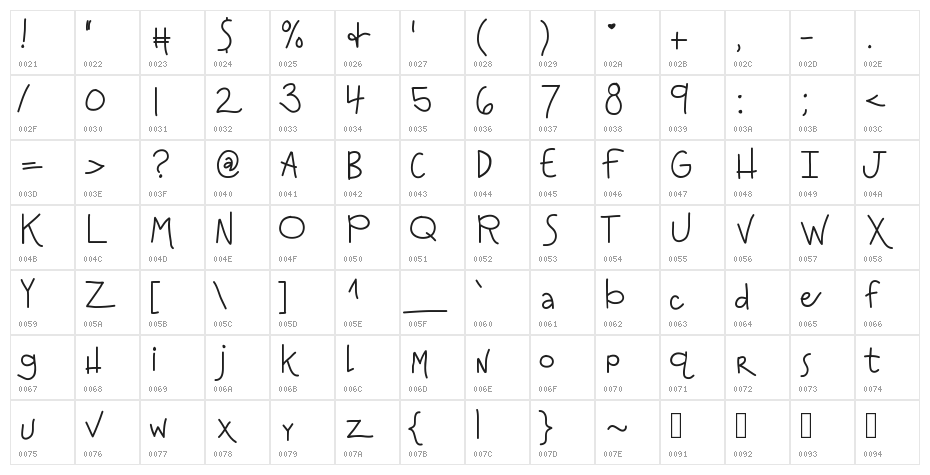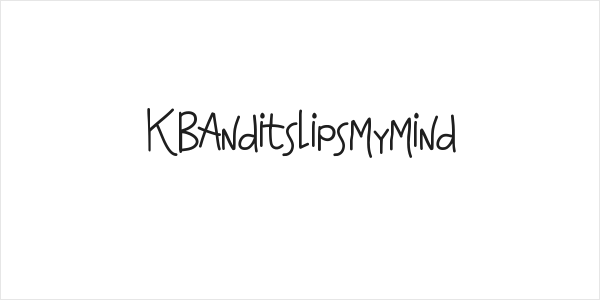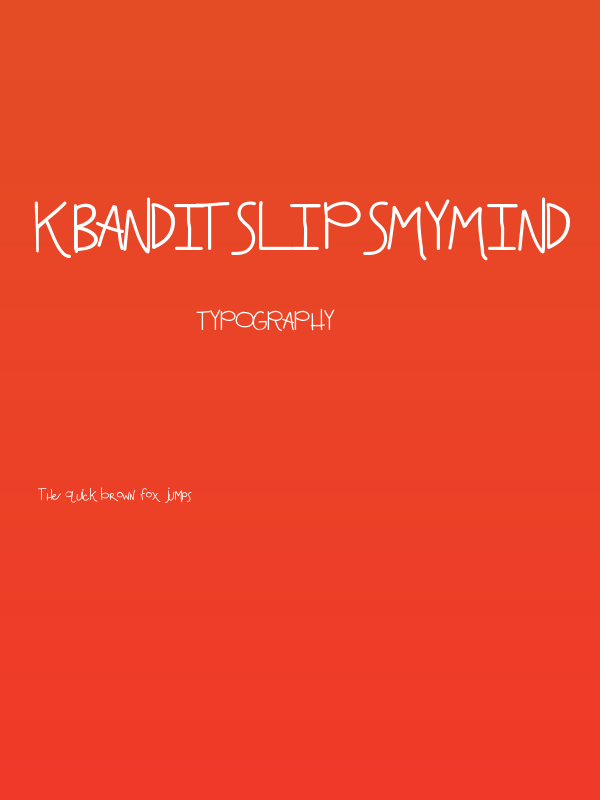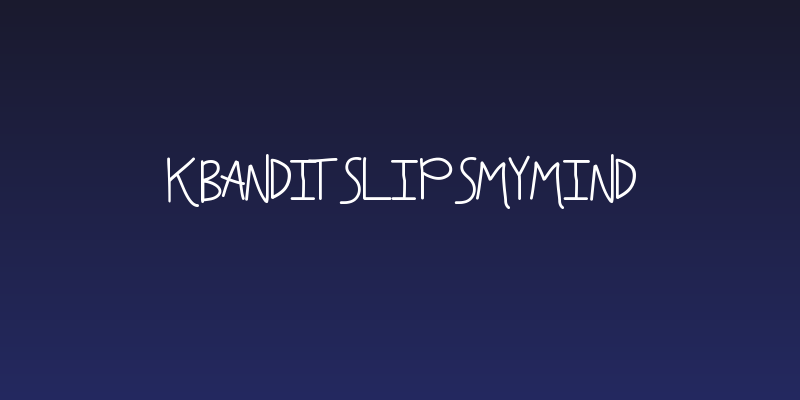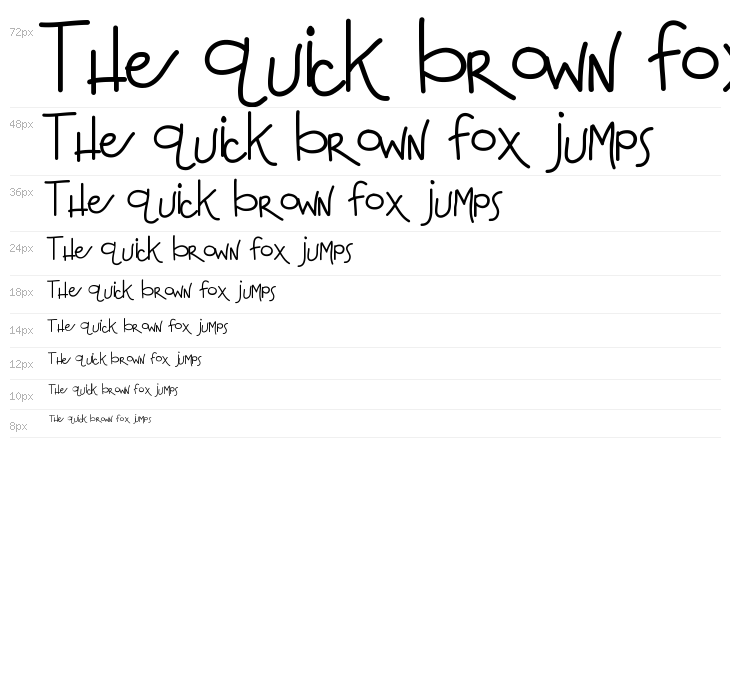
KBAnditslipsmymind Font
KBAnditslipsmymind Description
This font features a playful, handwritten style with a casual and informal appearance. The letters are slightly irregular, giving it a whimsical and approachable feel. The strokes are consistent in thickness, contributing to a uniform look despite the playful nature. The uppercase and lowercase letters maintain a cohesive style, with rounded edges and a slight tilt that adds to the font's charm. Numbers and special characters follow the same design principles, ensuring a harmonious overall appearance. This font is ideal for projects that require a personal touch or a friendly, inviting atmosphere.
| Proposed Projects | Greeting cards, children's books, casual branding, social media graphics. |